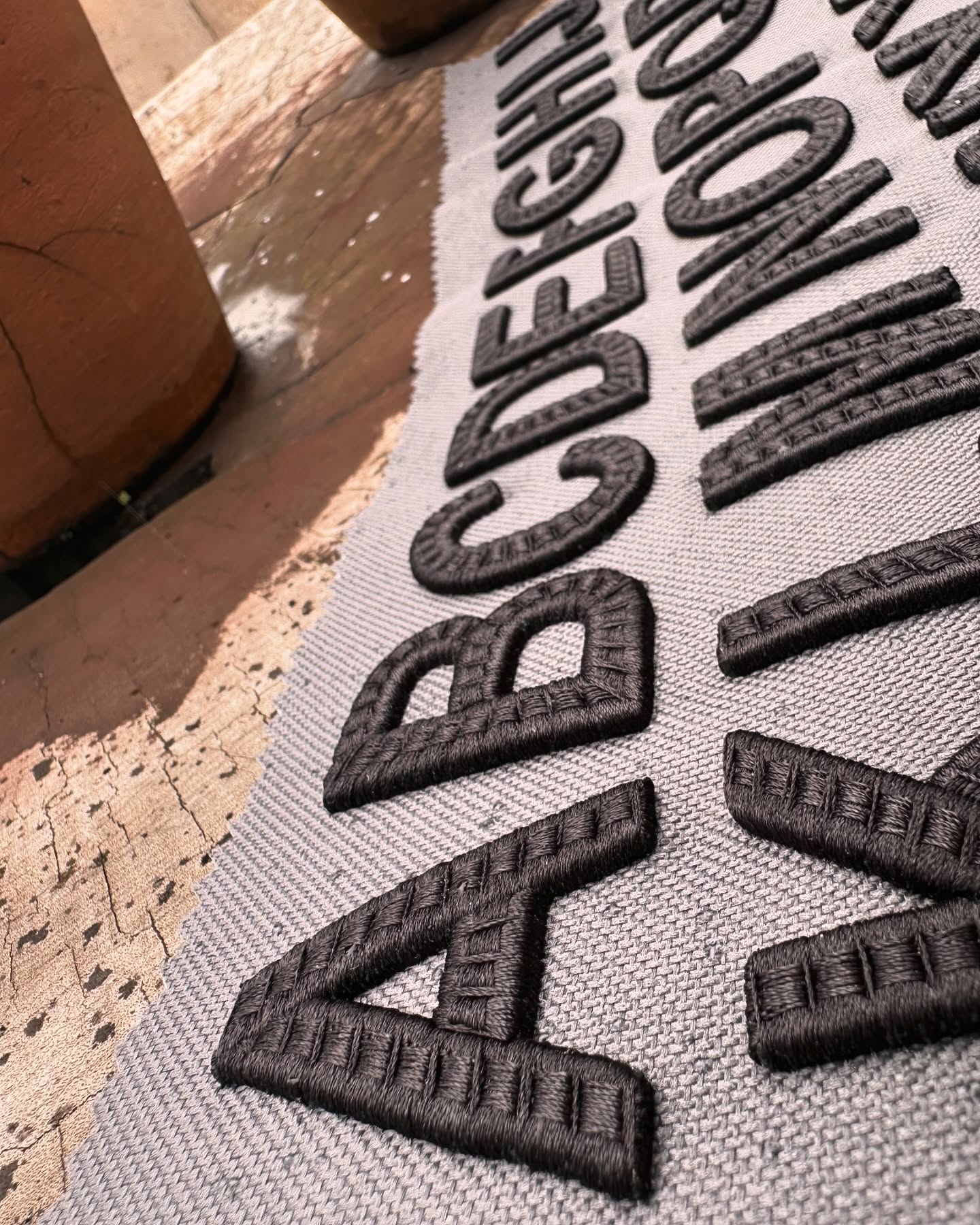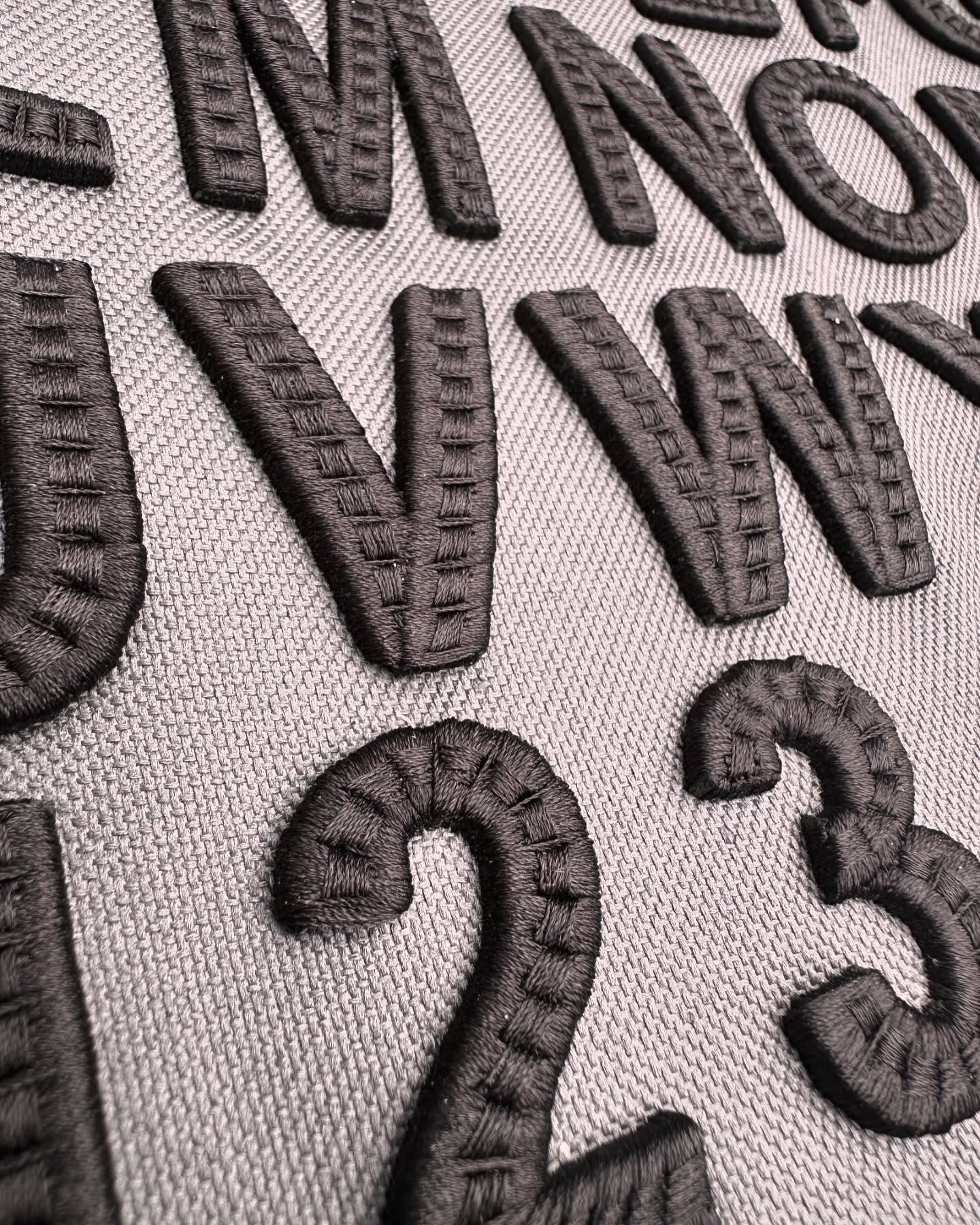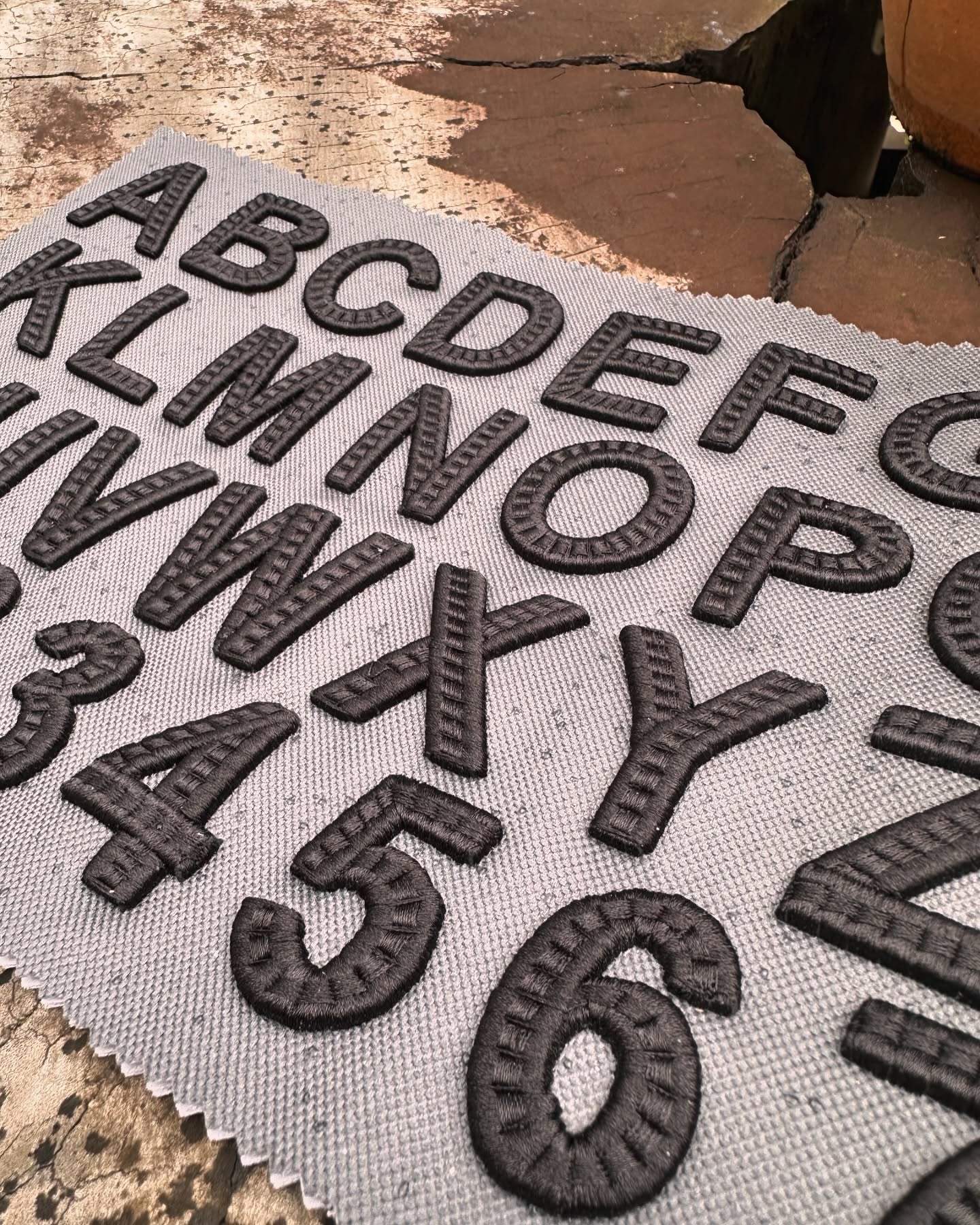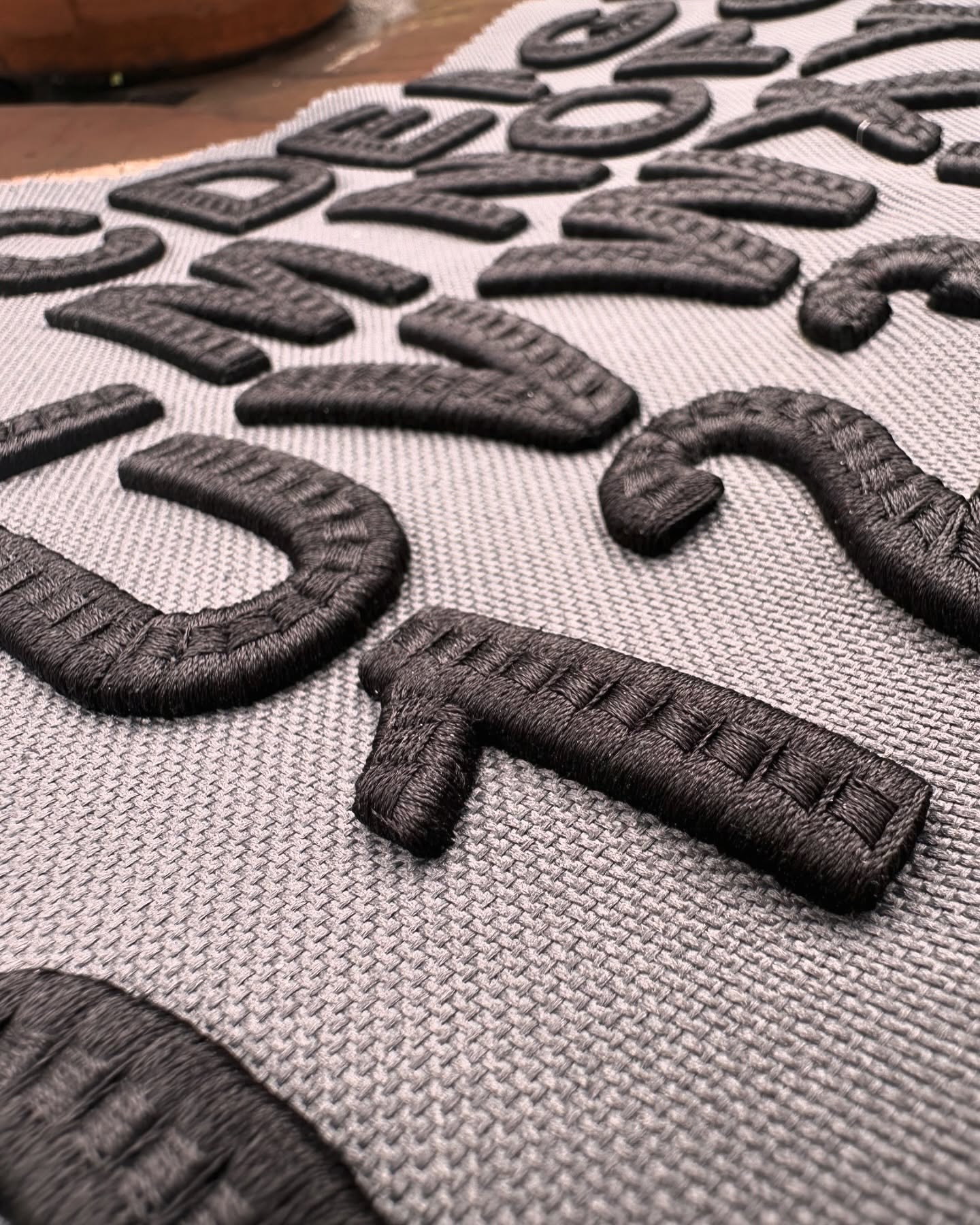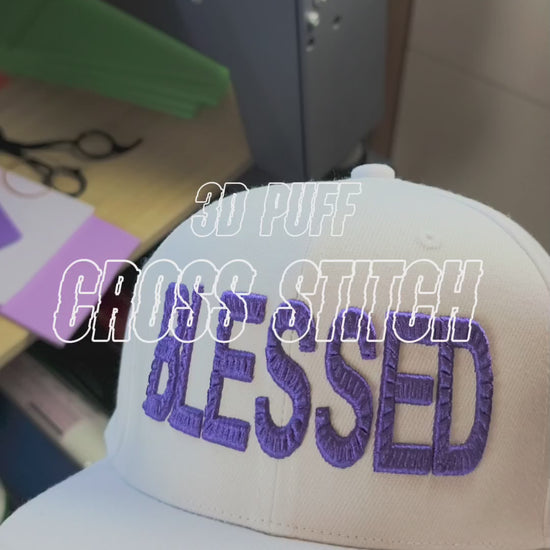
Bold & Raised: 3D Puff CrossCenter Chain Stitch Embroidery Font Collection – Uppercase Letters & Numbers
Elevate your embroidery with Bold & Raised, a collection where 3D puff meets CrossCenter chain stitch for unmatched texture and dimension.
Each uppercase letter and number features a unique hybrid technique: raised foam underlay creates bold 3D volume, while a precise chain stitch crosses through the center, adding intricate detail and retro charm.
Perfect for logos, team jerseys, or personalized gear, this font set blends durability with striking visual impact.
Dimensional Drama: 3D puff foam gives letters/numbers a tactile, eye-catching lift ideal for standout branding.
CrossCenter Detail: Chain stitching through the center of each character adds depth and a nod to vintage craftsmanship.
Built to Last: Reinforced stitching on hats, ensures designs withstand daily wear.